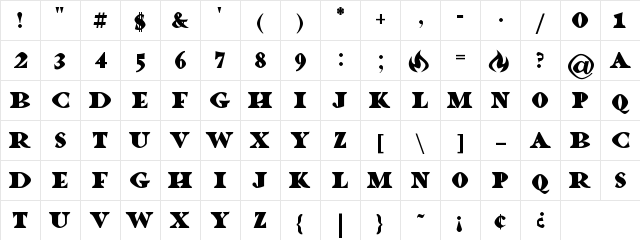
Dragonlands Regular Font Preview
Dragonlands Regular
Dragonlands Regular Font Details
Design Context for Dragonlands Typeface
Dragonlands is a composed and adaptable typeface that performs quietly and consistently across a wide range of design contexts.
Pro Tip: Use Dragonlands in both headline and body roles to test its range before committing to a single application.